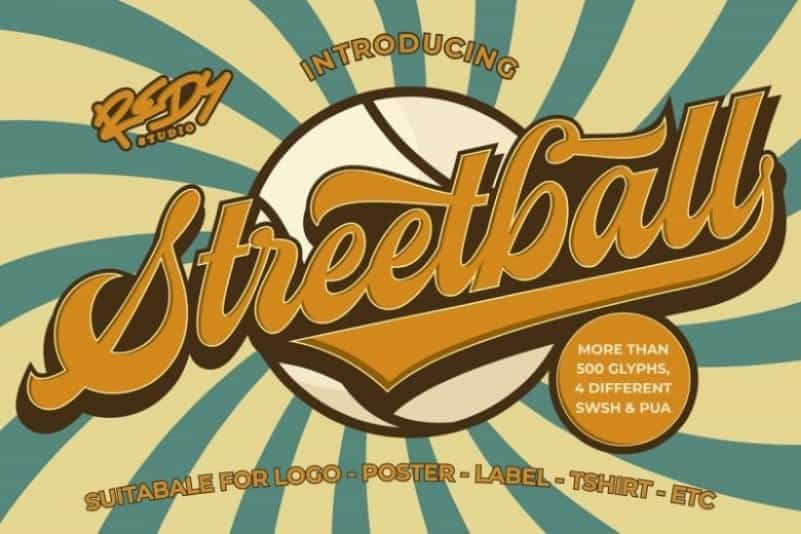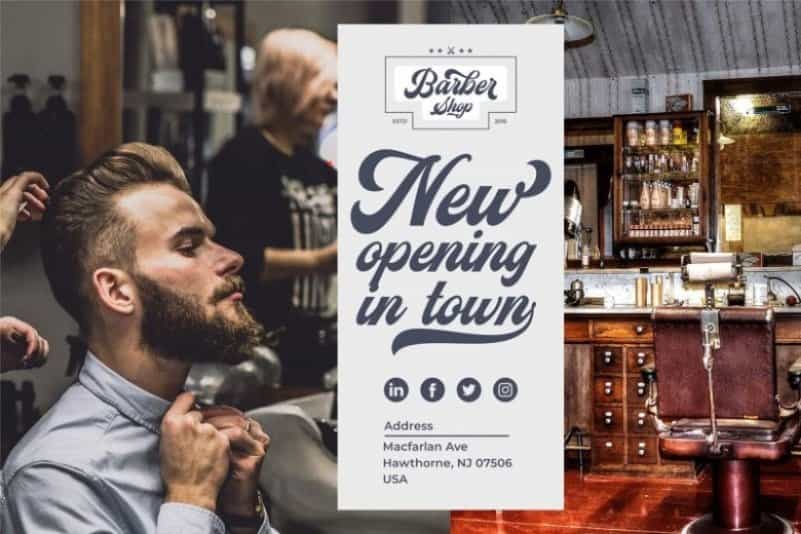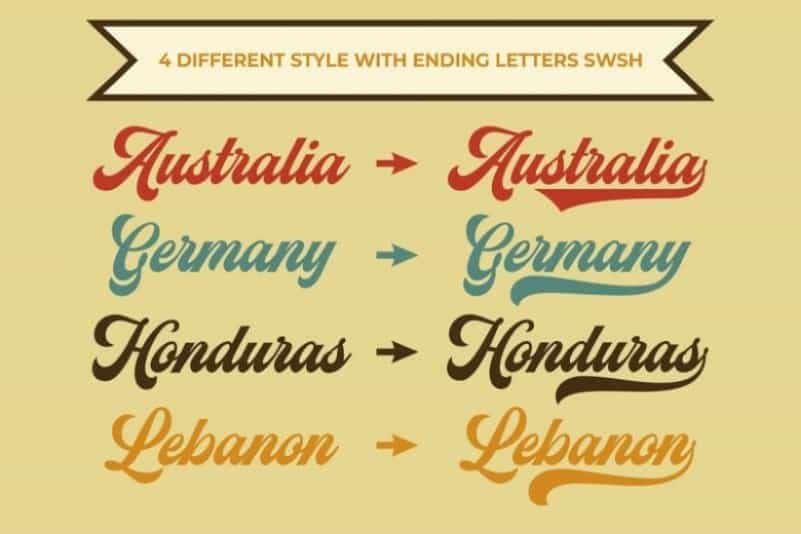
Introducing Streetball Font. It is a baseball themed design that combines the modern and the retro look into one. This font is made of several precise layers with the total of glyphs in the font is 511. Streetball can be applied to numerous media for example; packaging, logo, label, poster, shirt design, quote of wisdom, handlettering, typography and more.